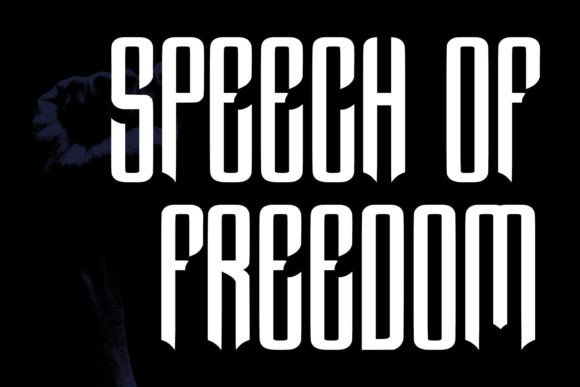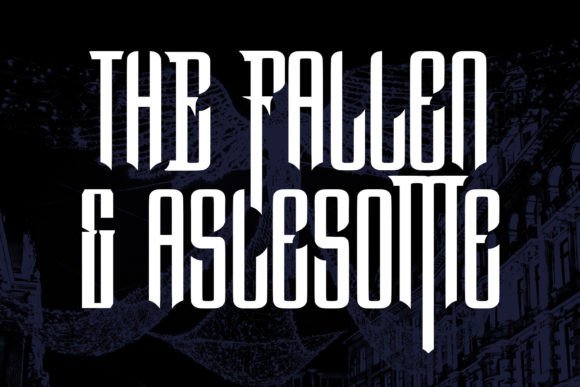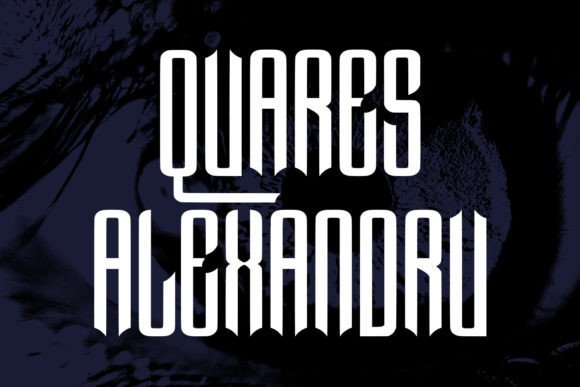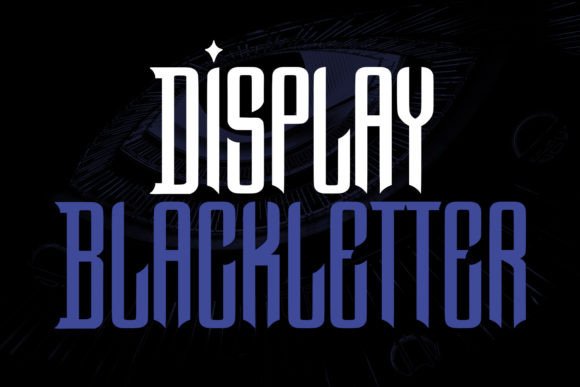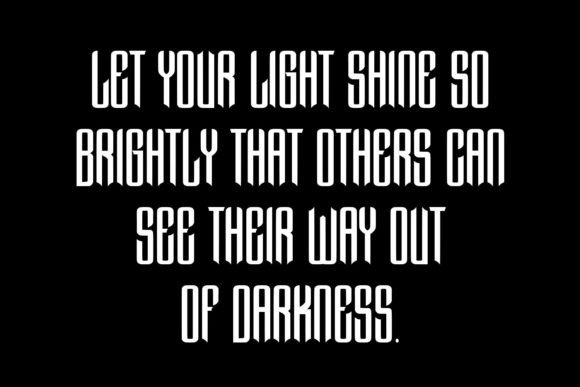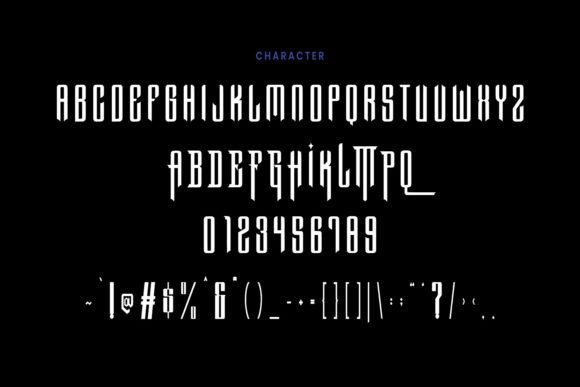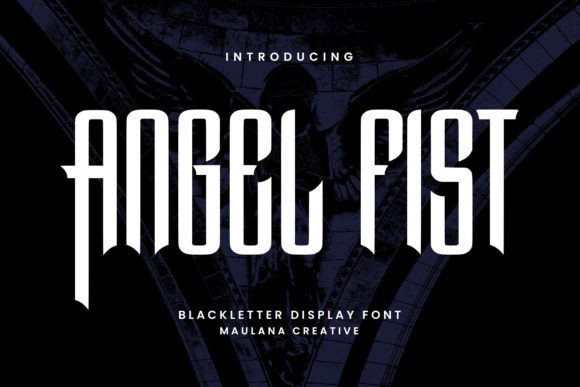
The Dramatic Charm of Angel Fist Font: A Designer’s Delight
I still remember the project that led me to discover the stunning Angel Fist Blackletter font. I was working on a design for a Gothic-inspired craft fair poster, and I needed a font that would scream drama and elegance. After hours of scrolling through font libraries, I stumbled upon Angel Fist, and it was love at first sight! ✨ The bold, vintage feel of this font instantly captured the essence of my design, and I knew I had found the perfect match.
- ✨ Stylish and bold: Angel Fist Blackletter makes a statement with its thick, decorative letters that demand attention.
- ✅ Vintage charm: The font’s old-fashioned handwriting feel adds a touch of nostalgia and sophistication to any design.
- 💡 Versatile: Whether you’re creating a poster, a logo, or a social media graphic, Angel Fist Blackletter is sure to elevate your design.
While Angel Fist Blackletter is an amazing font, there are a few things to keep in mind: 🤔
- ⚠️ Legibility at small sizes: Due to its bold and decorative nature, the font may become difficult to read at very small sizes.
- ⚠️ Limited use cases: While versatile, Angel Fist Blackletter might not be the best fit for body text or very formal designs.
The Story Behind Angel Fist Font
Legend has it that Angel Fist Blackletter was inspired by ancient manuscripts and calligraphic works from the Middle Ages. The font’s creator, a passionate typographer, aimed to capture the essence of old-world craftsmanship and bring it into the modern design era. While the true story might be fictional, one thing is certain: Angel Fist Blackletter has become a beloved font among designers and crafters worldwide.
Q: What type of projects is Angel Fist Blackletter best suited for?
A: Angel Fist Blackletter excels in designs that require a bold, eye-catching title or heading, such as posters, logos, and social media graphics.
Q: Can I use Angel Fist Blackletter for body text?
A: While possible, Angel Fist Blackletter might not be the best choice for body text due to its bold and decorative nature, which can make it difficult to read in large blocks.
Q: Does Angel Fist Blackletter support OpenType features?
A: Yes, Angel Fist Blackletter supports OpenType features, including glyphs and stylistic alternates, which can be accessed in compatible design software.